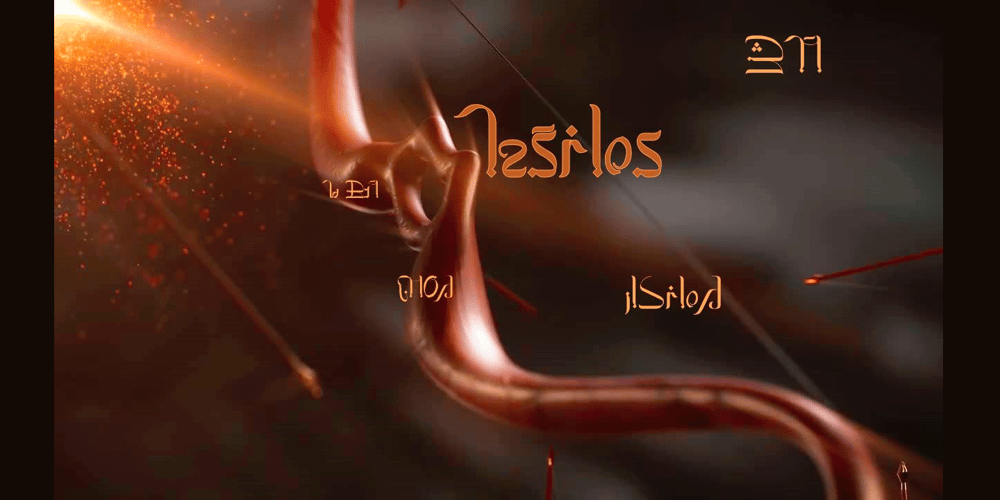
Kaman Font Family was designed by Aria Fakhari and published by Fakharia. Kaman contains 1 styles and family package options. Kaman (کمان, Arch) represents the complementary font family to the kamangir, encompassing five distinct styles. The initial two styles, kaman regular, and kaman LP, are emblematic of traditional conjoint Arabic font styles. Notably, the structural layout of the capital (isolated) letters has been intentionally modified to ensure a more uniform and cohesive visual presentation.The kaman LP (Less Point) denotes the only dot-reduced style in this font family, wherein glyphs containing two or more dots are substituted with new dotless shapes.The kaman MC (Mixed Case) mimics Latin fonts, allowing typists to select between lowercase and uppercase (Isolated) letters using a software shift key. The software shift feature can be turn on/off by hitting two consequent Alef_Hamza_above/Alef_Hamza_below letters. more…The last two styles are Small Caps (kaman SC) and All Caps (kaman AC) versions of this font family.The Perso-Arabic component of this font family is available for commercial use, while the Latin component closely resembles the Eid Mubarak font with only minor alterations. Consequently, it is essential to obtain the appropriate permissions prior to utilization.